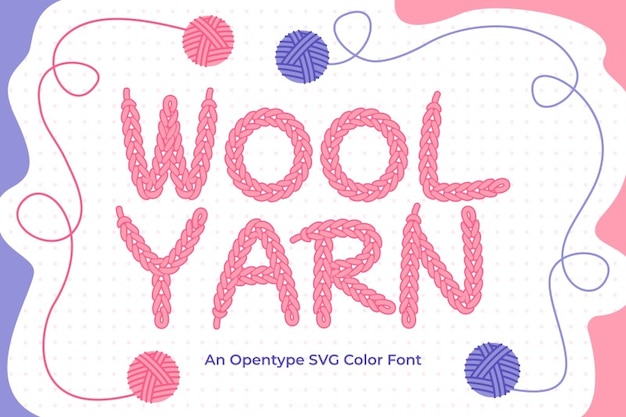
Wool Yarn Font
Wool Yarn font weaves a tale of simplicity and creativity, like shoelaces spun from cozy wool. Its rounded edges bring a snug, playful vibe, as if each letter is a crafty creation. Simple yet charming, it stitches together a unique typographic story. It's the font that knits creativity into your design, wrapping it in a warm, imaginative embrace.